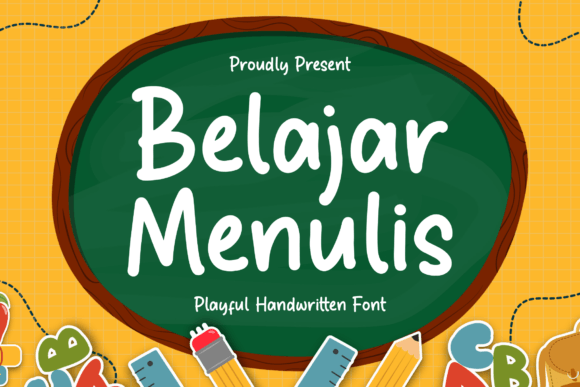
Belajar Menulis: The Playful Handwritten Font for Creative Projects
Are you a designer, crafter, or DIY enthusiast looking for a beautiful and playful handwritten font to elevate your projects? Look no further than Belajar Menulis, a stunning script font perfect for a wide range of applications. In this article, we’ll explore the features and benefits of Belajar Menulis and how it can add a touch of elegance and whimsy to your designs.
What is Belajar Menulis?
Belajar Menulis is a handwriting font that mimics the natural flow and imperfections of handwritten script. With its playful and carefree vibe, this font is ideal for designers and crafters who want to add a personal touch to their projects. Whether you’re working on a logo, branding project, homeware design, or product packaging, Belajar Menulis is the perfect choice.
Features of Belajar Menulis
• Playful and whimsical: Belajar Menulis has a lighthearted and carefree feel that’s perfect for projects that require a touch of personality.
• Handwritten script: This font mimics the natural flow and imperfections of handwritten script, giving it a unique and authentic feel.
• Versatile: Belajar Menulis is suitable for a wide range of projects, from logos and branding to homeware designs, product packaging, and more.
• Elegant and refined: Despite its playful nature, Belajar Menulis has an elegant and refined quality that makes it perfect for high-end projects.
Uses for Belajar Menulis
Belajar Menulis is a versatile font that can be used for a wide range of projects, including:
• Logos and branding: Create a unique and memorable logo for your business or brand with Belajar Menulis.
• Homeware designs: Add a touch of personality to your homeware designs, such as cushions, tote bags, and mugs.
• Product packaging: Elevate your product packaging with a beautiful and elegant script font.
• Quotes and posters: Create inspiring quotes and posters with Belajar Menulis.
• T-shirts and apparel: Design unique and stylish t-shirts and apparel with this playful font.
• Book covers and name cards: Add a touch of elegance to your book covers and name cards.
• Invitation cards and greeting cards: Create beautiful and personalized invitation cards and greeting cards.
• Labels and photography: Use Belajar Menulis for labels and watermarks to add a touch of personality to your photography.
Tips for Using Belajar Menulis
Here are some tips for getting the most out of Belajar Menulis:
• Experiment with different colors: Belajar Menulis looks great in a range of colors, from bold and bright to soft and pastel.
• Mix and match with other fonts: Combine Belajar Menulis with other fonts to create a unique and interesting look.
• Use it for headings and titles: Belajar Menulis is perfect for headings and titles, adding a touch of elegance and whimsy to your designs.
• Add some texture and patterns: Experiment with adding texture and patterns to your designs to give them an extra layer of interest.
Belajar Menulis is a beautiful and playful handwritten font that’s perfect for designers and crafters looking to add a touch of elegance and whimsy to their projects. With its versatile nature and wide range of uses, this font is sure to become a favorite in your design toolkit. So why not give Belajar Menulis a try and see how it can elevate your designs?